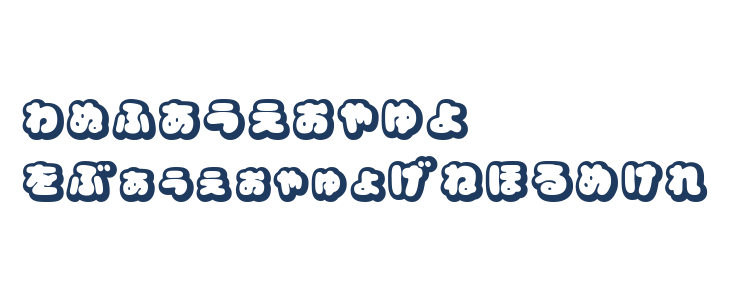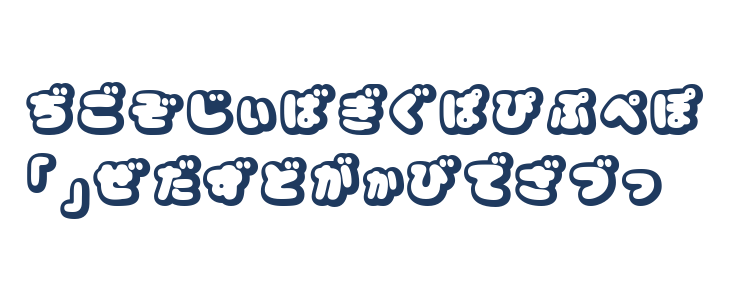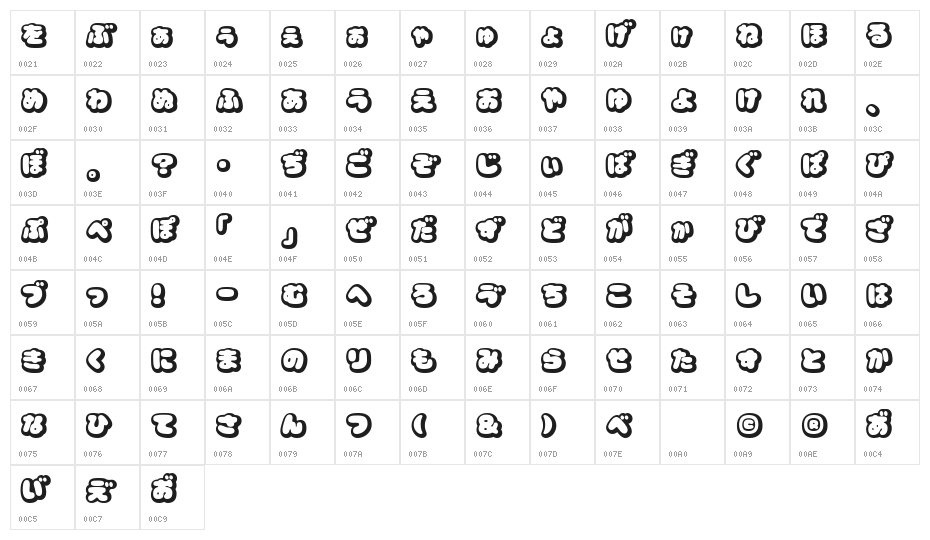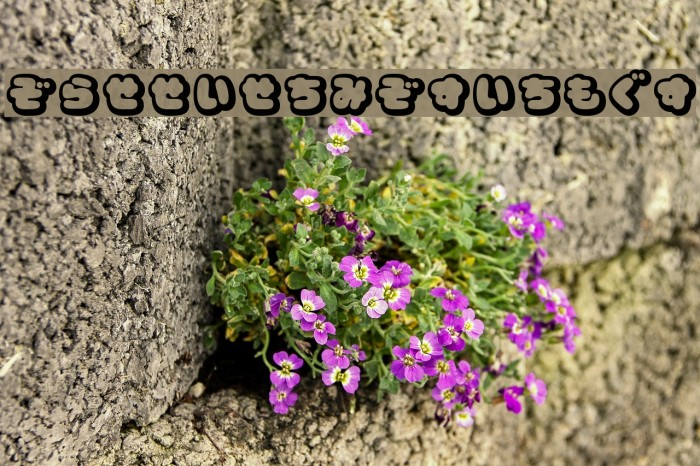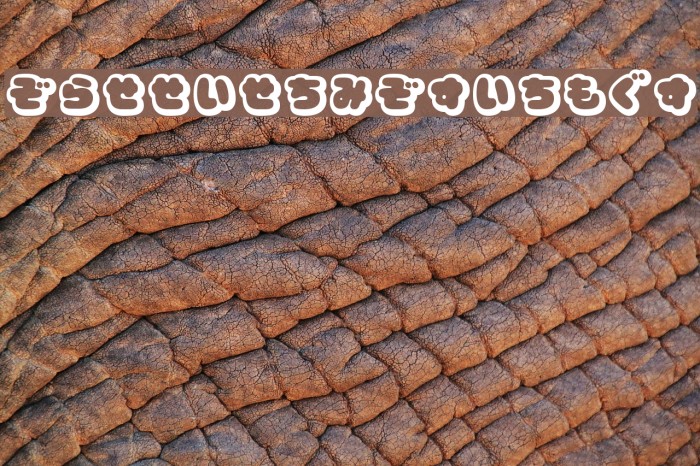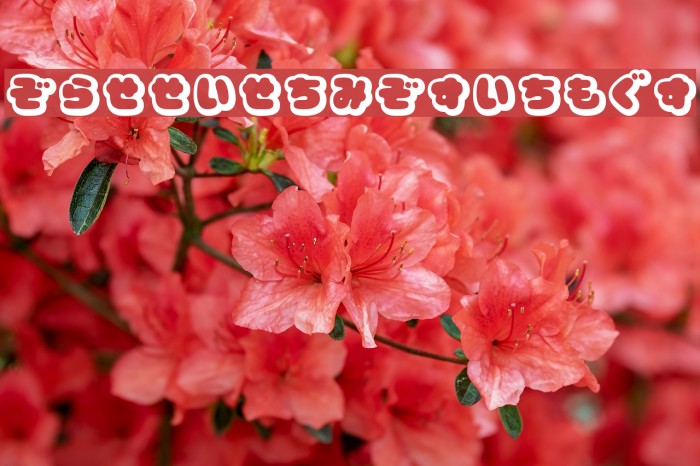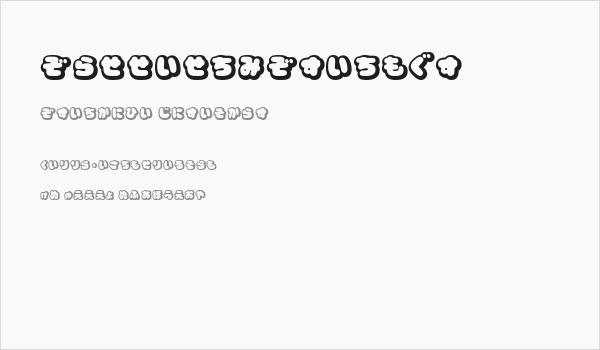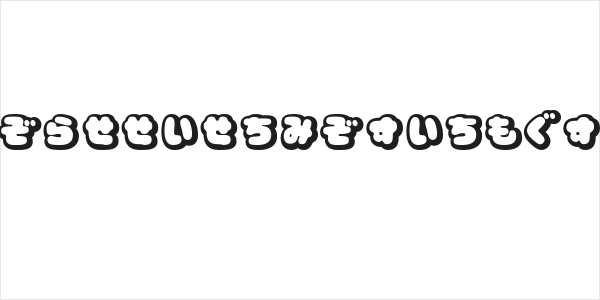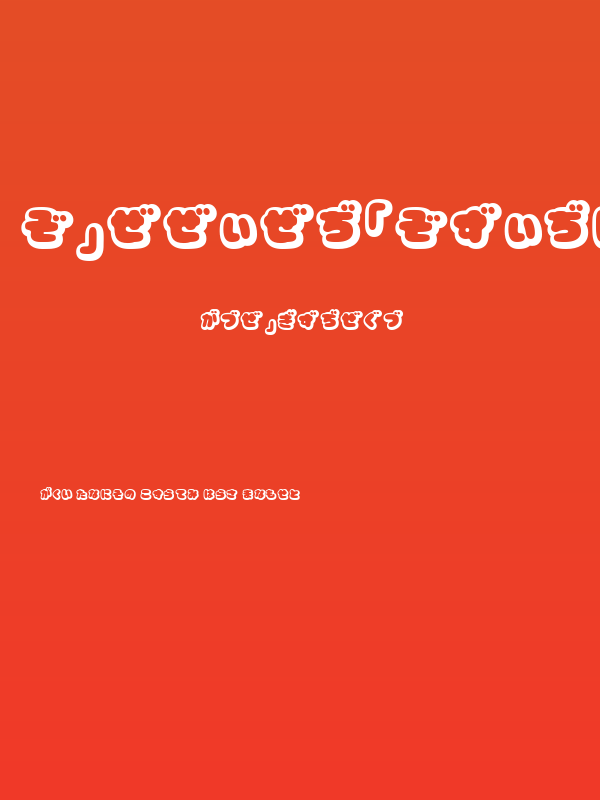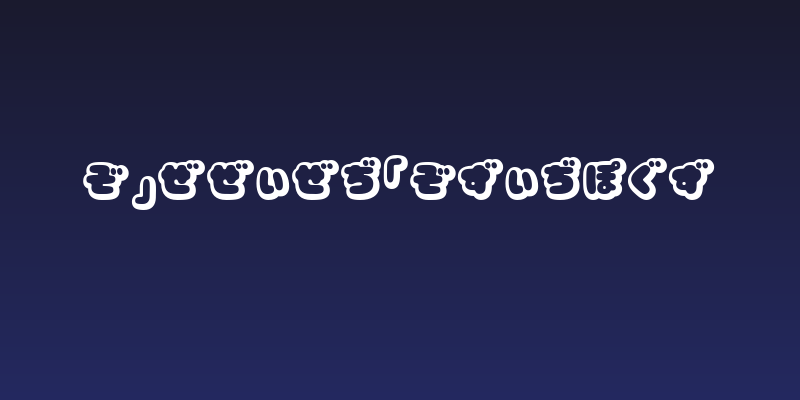
CoppepanCreamHr Font
CoppepanCreamHr Description
This playful and bold font features a thick, rounded style with a cartoonish appearance. The characters are outlined, giving them a bubble-like effect that adds to their whimsical charm. The font is highly legible, with each character distinctly separated by its bold outline. It conveys a sense of fun and creativity, making it ideal for designs that aim to capture attention and convey a lighthearted tone. The exaggerated curves and consistent stroke width contribute to its unique and engaging aesthetic.
| Overall Style | Playful, Cartoonish |
| Proposed Projects | Ideal for children's books, comic strips, playful branding, and party invitations. |